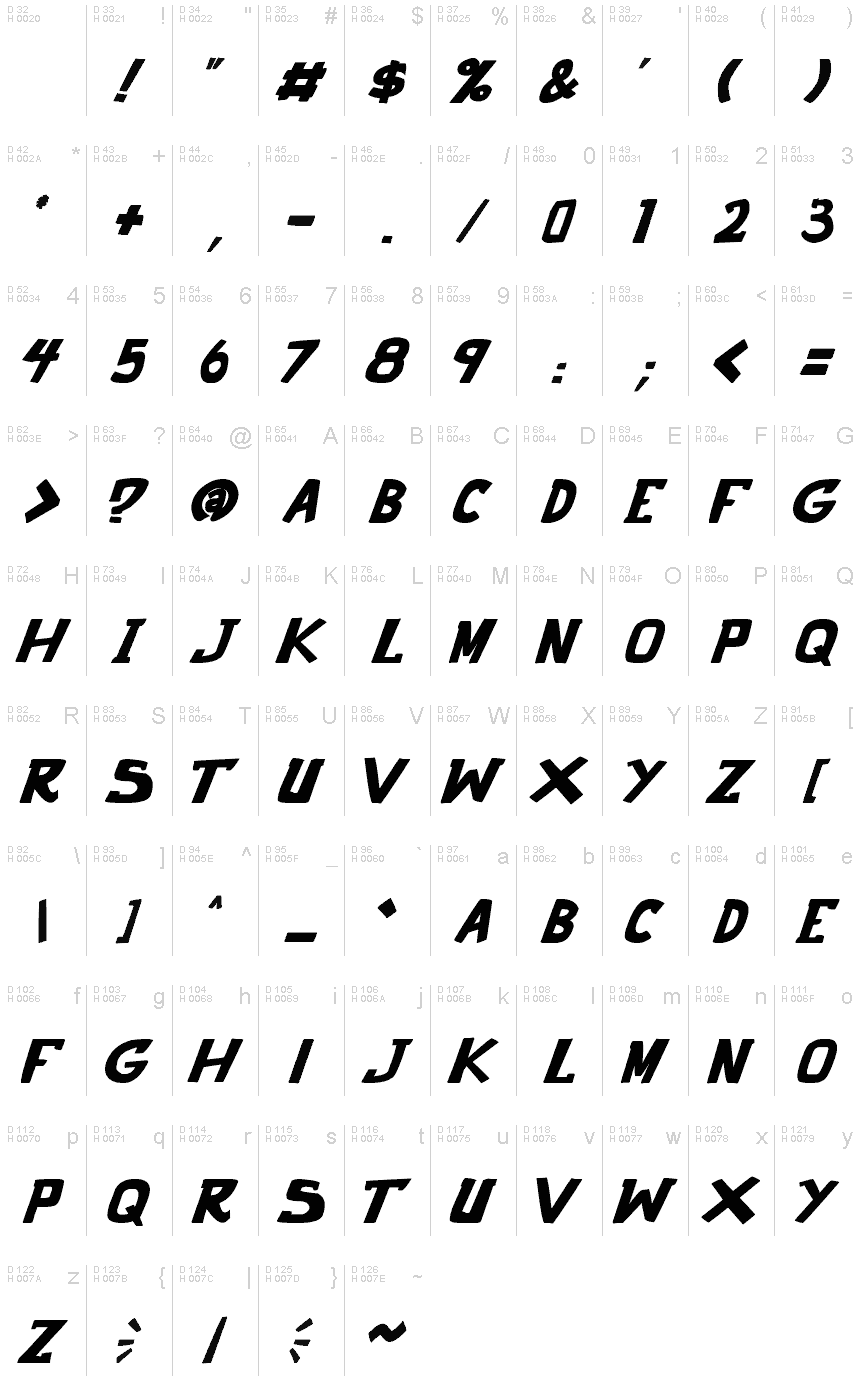
punch it PGS Bold Italic
Punch it PGS Bold Italic emerges from the creative house of Pressgang-studios.com as a dynamic and commanding display font that instantly captures attention. With its comic style and bold weight, this typeface boasts a playful yet confident aesthetic that makes it perfect for projects needing a touch of energy and enthusiasm.
Characterized by its exaggerated forms and slanted posture, Punch it PGS Bold Italic exudes movement and liveliness, suggesting action and excitement in every character. The font's robust design ensures high readability even when used in larger displays or at a distance, making it an ideal choice for headers, posters, branding, and any project where you want your message to stand out with an element of fun.
The unique style of Punch it PGS Bold Italic is not only visually appealing but also highly versatile. Whether you're crafting eye-catching comic strips, designing engaging animations, or adding personality to marketing materials, this font offers endless possibilities to infuse your creative work with flair and distinction.